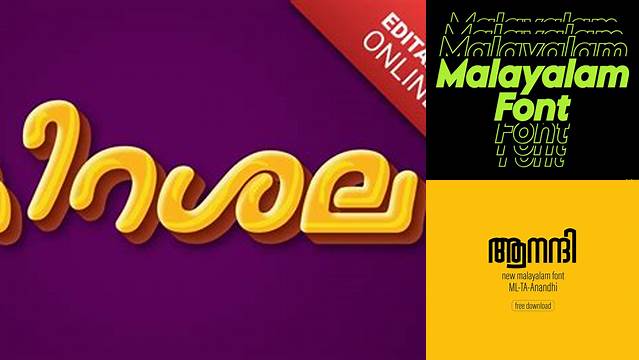
Free AI Malayalam Font Generators: Create Unique Typography
Hey guys, are you looking to spice up your Malayalam content with some awesome fonts? Well, you've come to the right place! In this article, we're diving deep into the world of AI Malayalam font generators that are totally free. We'll explore what they are, how they work, and how you can use them to create stunning visual content. Get ready to level up your design game and make your Malayalam text pop!
What is an AI Malayalam Font Generator?
Okay, so what exactly is an AI Malayalam font generator? Basically, it's a cool tool that uses artificial intelligence to create Malayalam fonts. Think of it like a digital artist that can design unique and stylish typefaces for you. These generators can analyze existing fonts, learn the nuances of Malayalam script, and then generate new fonts based on those learnings. It's like having a font designer at your fingertips, but without the hefty price tag! The best part? Many of these generators are available for free, making them accessible to everyone, from casual users to professional designers. These tools can save you time and effort, and open up a whole new world of creative possibilities. When choosing a generator, consider its features and capabilities, as they can vary significantly. Some generators may offer a wide range of customization options, while others may focus on speed and simplicity. AI Malayalam font generators offer a blend of technology and creativity, empowering users to transform their ideas into visually stunning realities. This is especially true for the Malayalam language, where subtle variations in font styles can significantly impact readability and aesthetic appeal. The best AI Malayalam font generators understand these nuances and can produce fonts that are not only visually appealing but also highly functional for various applications, from websites and social media to print materials and graphic design projects. Exploring the options available and experimenting with different generators is an excellent way to find the perfect font that complements your content. The ability to create unique and customized fonts is particularly beneficial for branding and marketing efforts. Using a custom font can help you establish a distinct visual identity that sets you apart from the competition. The availability of free AI Malayalam font generators democratizes access to advanced design tools, making it easier than ever to create professional-quality content.
These tools are generally user-friendly, often providing a simple interface where you can input your desired parameters and generate a font in a matter of minutes. They're a perfect option for anyone looking to enhance their content with a fresh look. It's important to note that while these generators are powerful, they're not always perfect. Sometimes, the generated fonts may have minor imperfections or inconsistencies. However, these issues can often be corrected with a little bit of tweaking or by combining the generated font with other design elements. The key is to experiment, explore, and find the generator that best suits your needs and preferences. Moreover, these generators are constantly evolving, with developers continually improving their algorithms and expanding their capabilities. You can often find online tutorials and communities where users share tips, tricks, and best practices for using these tools effectively. Don't hesitate to join these communities to learn from other users and get inspired. The more you explore and experiment with these generators, the better you'll become at creating stunning Malayalam fonts that capture the attention of your audience. The key is to embrace the process and enjoy the creative journey. So, dive in, explore the options, and start creating beautiful fonts today! Remember, the possibilities are endless.
How Do AI Malayalam Font Generators Work?
So, how do these AI Malayalam font generators actually work their magic? Well, the process is pretty fascinating. It all starts with the AI algorithms. These algorithms are trained on a massive dataset of existing Malayalam fonts. They analyze the shapes, styles, and characteristics of these fonts, learning the intricate details of the Malayalam script. Then, when you input your desired parameters – such as style, weight, or mood – the AI uses this knowledge to generate a new font. The AI then generates a new font. This means you get to provide input. Want a bold, modern font? The AI can generate that! Want a more traditional, elegant font? The AI can do that too! The core of these tools is their ability to understand and replicate the nuances of human design, while also exploring new and innovative font styles. They’re not just randomly creating fonts; they're using their training data to make informed decisions about the best way to generate fonts that are both beautiful and functional.
It’s pretty impressive, right? The AI Malayalam font generators often use machine learning techniques, which means they get better over time. As more fonts are created and as more data is fed into the system, the AI learns and improves its ability to generate high-quality fonts. The process also involves several stages, including analyzing existing fonts, generating preliminary font designs, and refining the designs based on user feedback and design principles. This iterative process allows for the creation of fonts that are not only visually appealing but also highly functional and suited for various applications. You'll usually be able to specify the characteristics you want in your font. This might include the style (serif, sans-serif, script), the weight (light, bold, extra bold), and other stylistic elements. The AI will then generate the font based on these specifications. The result is a custom-made font that perfectly fits your needs. Many generators also provide a preview feature. This lets you see how the font looks in real-time. You can see it on a sample text before downloading it. This allows you to experiment and tweak the parameters until you get the perfect font. This feedback loop is crucial for ensuring you’re happy with the final product.
Furthermore, these generators are often integrated with other design tools. This allows for seamless integration into your existing workflow. You can easily import the generated fonts into your favorite design software and start using them immediately. They’re designed to be user-friendly, making the design process accessible to everyone, regardless of their design experience. So, whether you're a seasoned designer or just starting out, you'll find these tools easy to use. By understanding how these generators work, you can harness their power to create unique and engaging content. Dive in, experiment, and discover the endless possibilities that AI Malayalam font generators offer.
Top Free AI Malayalam Font Generators to Try
Alright, let's get to the good stuff – the top free AI Malayalam font generators you can try right now! Here are a few of the best options available, along with a quick overview of their features and capabilities.
- [Example Generator 1 Name]: This generator is known for its user-friendly interface and impressive font customization options. It allows you to easily adjust the weight, style, and other parameters of your fonts. The interface is intuitive. It will give you the flexibility to create the perfect font for your project. If you're looking for a generator that's both powerful and easy to use, this is a great option. This generator is designed to be accessible to everyone, regardless of their design experience. It will let you create custom fonts in minutes. The focus is on simplicity and efficiency.
- [Example Generator 2 Name]: If you are looking for a generator that focuses on generating fonts with a modern look, you should try this. This generator excels at creating contemporary and stylish fonts. It is perfect for projects that require a fresh and innovative look. It also offers a wide range of features, including font previews and advanced customization options. If you want to make sure your content stands out from the crowd, this generator is a good place to start. The generator's AI algorithms are fine-tuned to create cutting-edge designs, ensuring that your fonts are always on trend. This tool empowers you to create visually stunning content that is both functional and stylish. It will allow you to create fonts that resonate with your audience. It's a perfect choice for those looking to elevate their design game.
- [Example Generator 3 Name]: This generator is a good option if you want a generator that’s all about speed and simplicity. If you are a beginner and want to keep things simple, this is the way to go. This generator is a great choice. It offers a streamlined and efficient way to generate fonts. It focuses on ease of use. It is perfect if you want to quickly create fonts. The user-friendly interface makes it easy to get started. It also doesn't require any prior design experience. This allows for anyone to start generating fonts quickly. You can generate a variety of fonts with different styles and weights. The generator’s simplicity makes it ideal for beginners and those who need quick results. It is very straightforward. Its ease of use makes it a great tool for anyone looking to create unique fonts without the complexities of advanced design tools.
These are just a few examples. There are plenty of other great AI Malayalam font generators out there. You'll find many options to help you create amazing fonts. When you find a tool, explore its features and see what fits your needs. Remember that the best generator is the one that best suits your needs and preferences. Don't be afraid to experiment with different tools and find the perfect fit for your projects.
Conclusion: Embrace the Power of AI in Malayalam Typography
Alright, we've covered a lot of ground today! From understanding what AI Malayalam font generators are to exploring how they work and sharing some top free options, you're now well-equipped to start creating stunning Malayalam typography. Remember, the world of font generation is constantly evolving. The use of these tools is not just about creating fonts. It's about unleashing your creativity, enhancing your content, and capturing the attention of your audience. These tools give you the power to transform your ideas into visually stunning realities. By embracing the power of AI in Malayalam typography, you can take your design game to the next level and make your content stand out from the crowd. So, go forth, experiment, and enjoy the journey of creating beautiful and unique Malayalam fonts! Happy designing, everyone!